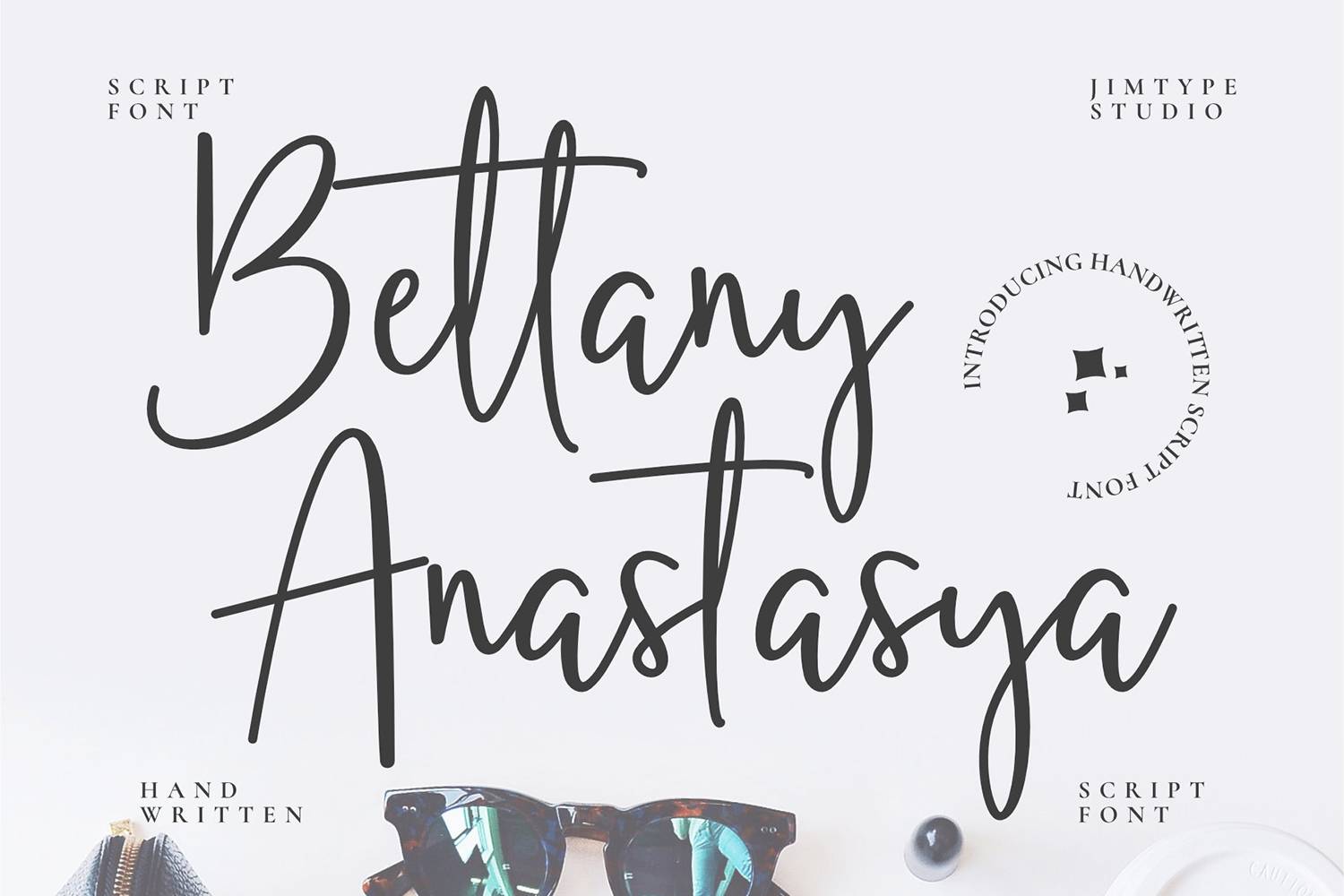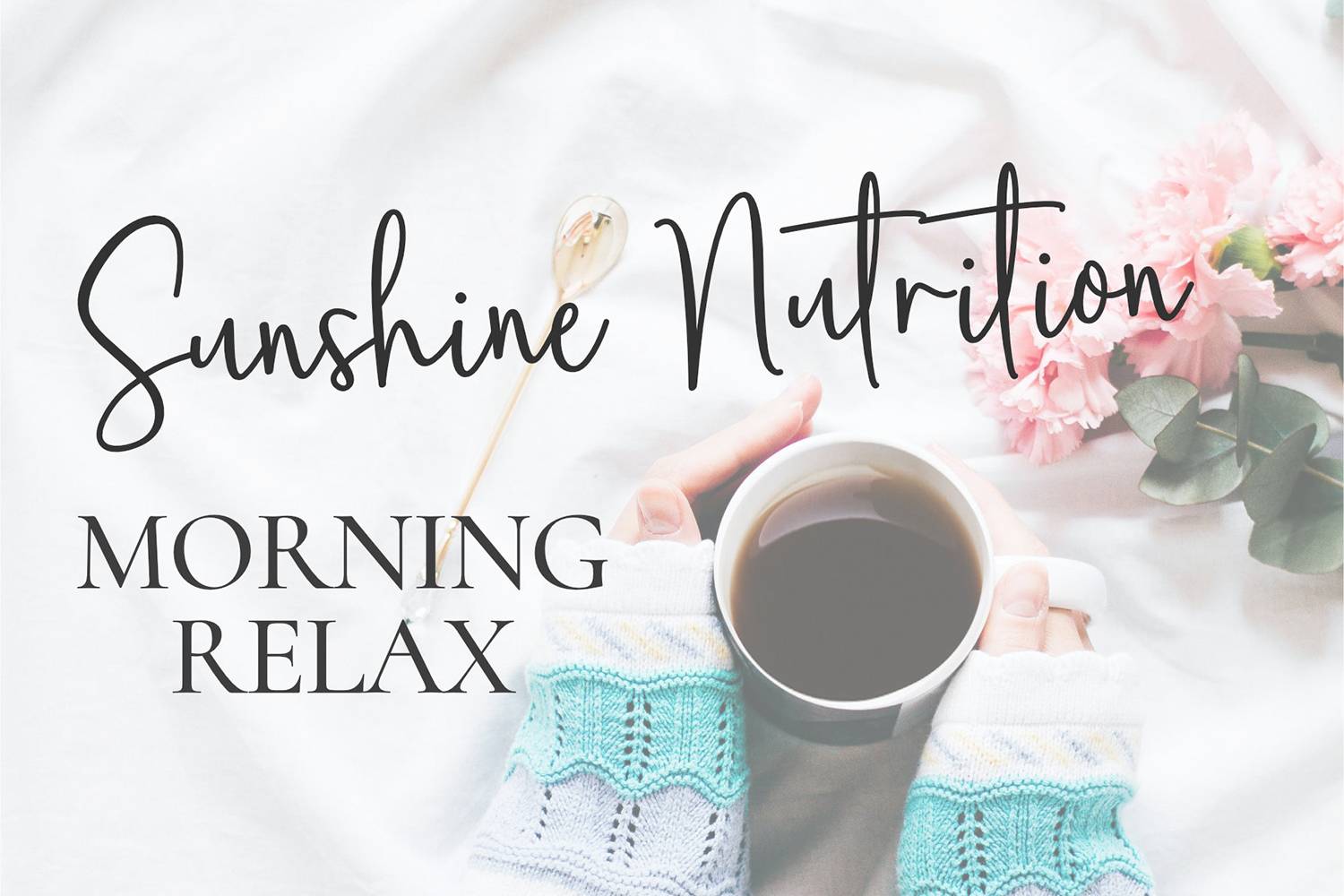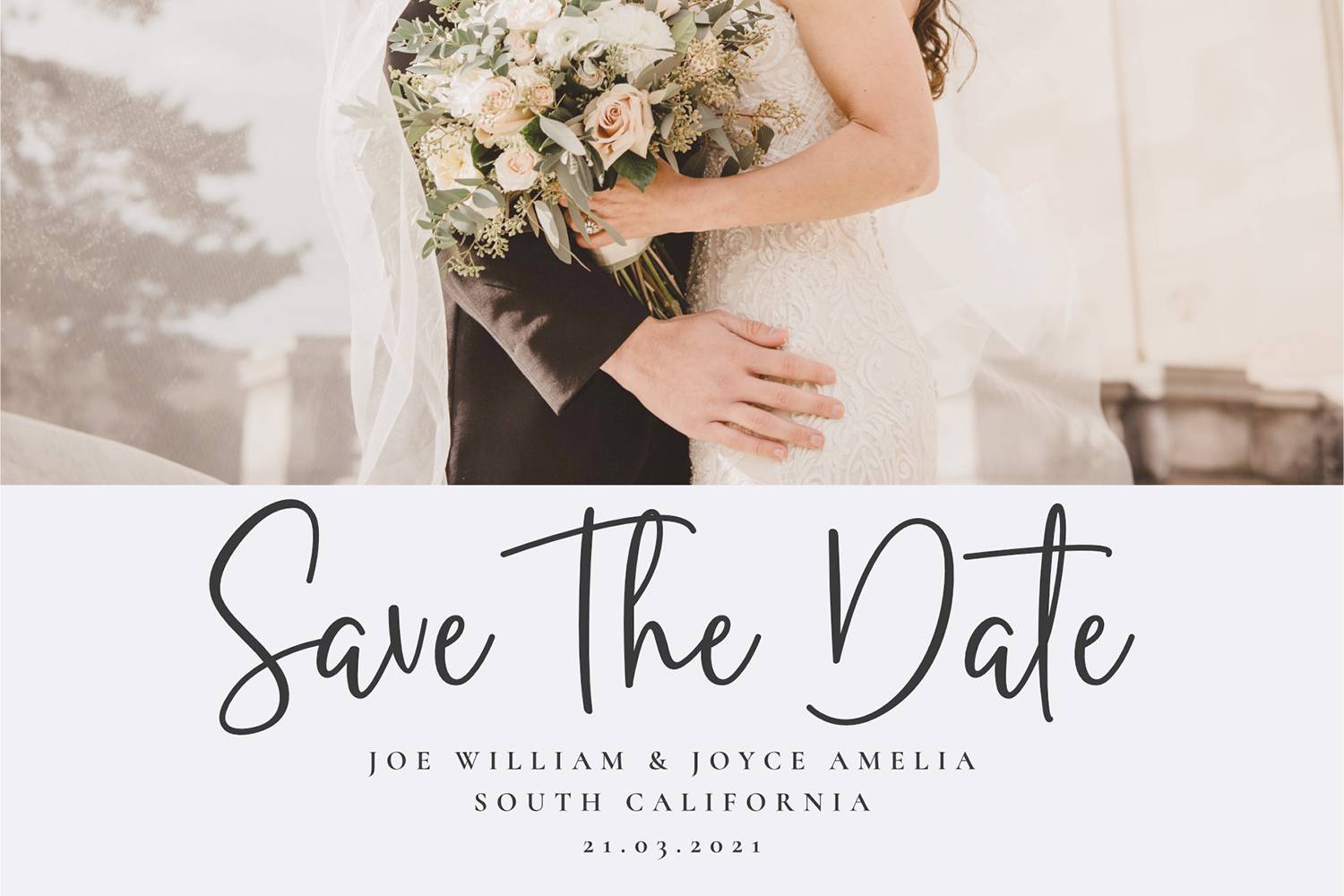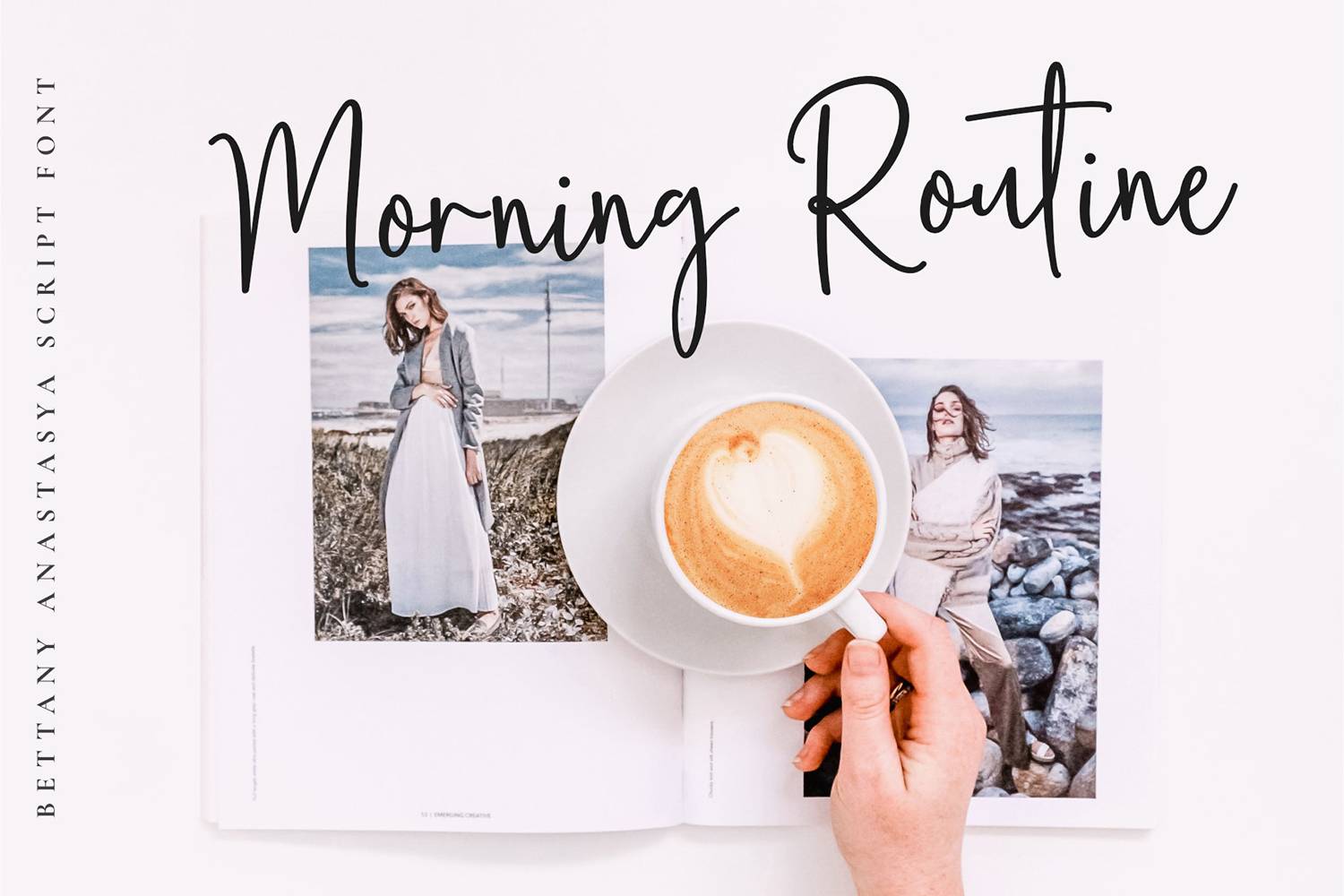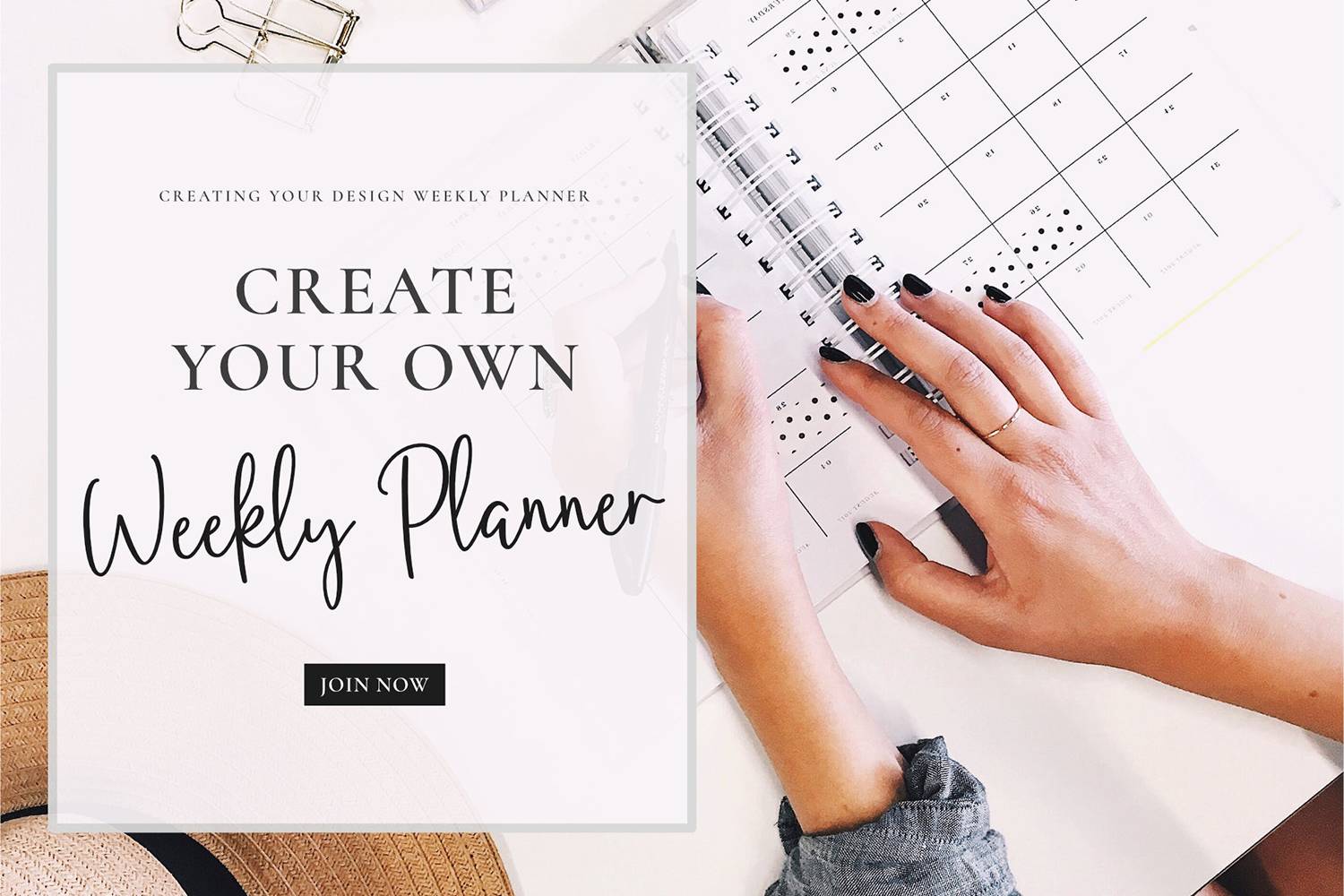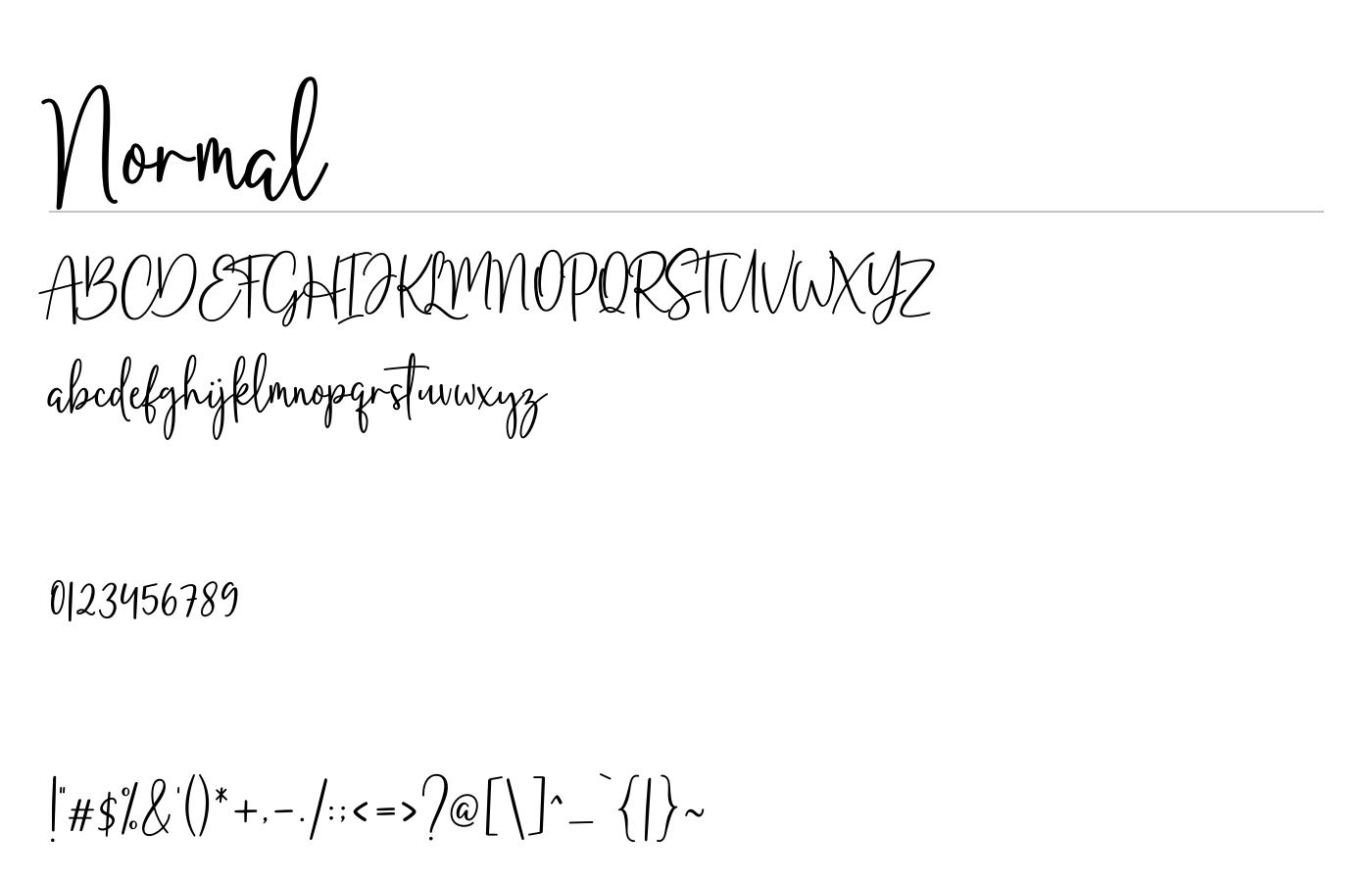
Bettany Anastasya is a delicate, handwritten script font featuring tall, narrow letterforms with a casual yet elegant flow. Its light weight and airy spacing give it a friendly, personal feel that works beautifully for creative projects, invitations, and branding that seek a warm, approachable touch. This font is ideal for designs that want to convey authenticity and charm without sacrificing readability.
Bettany Anastasya Font
About Bettany Anastasya Font
| Font family | Bettany Anastasya Font |
| Designer | Jimtype Studio |